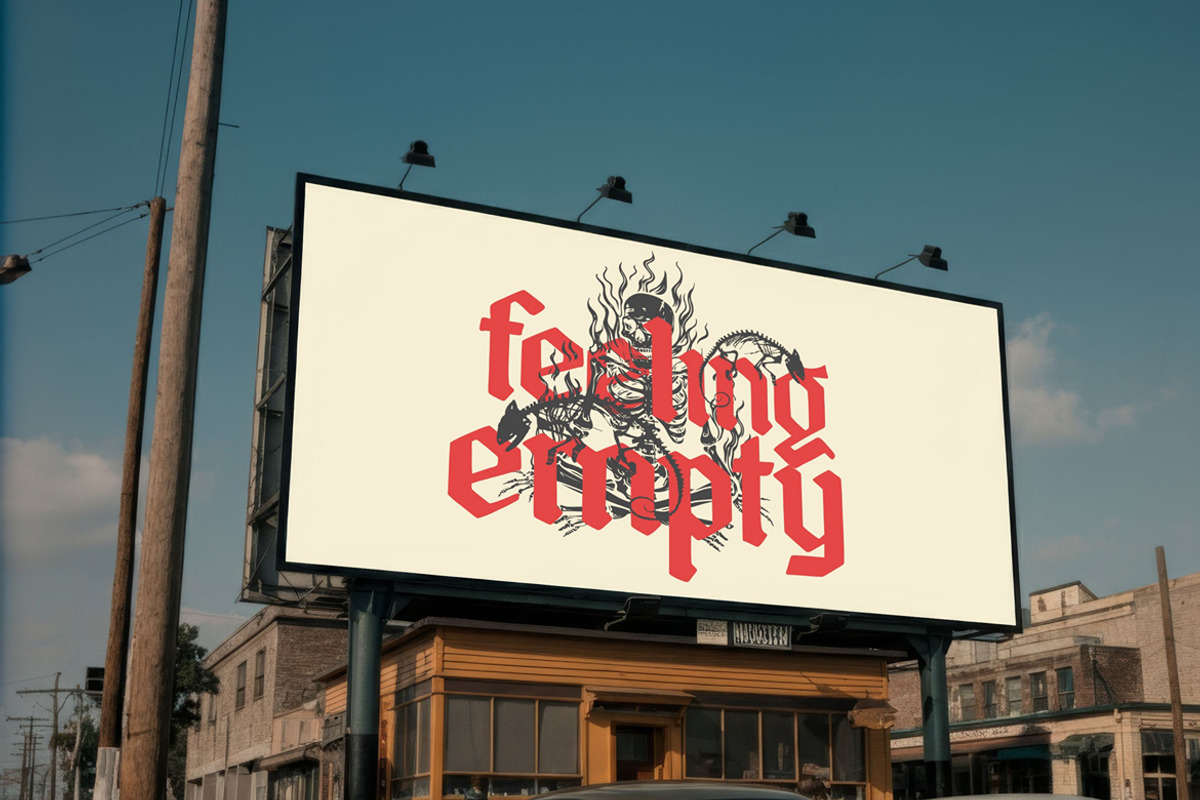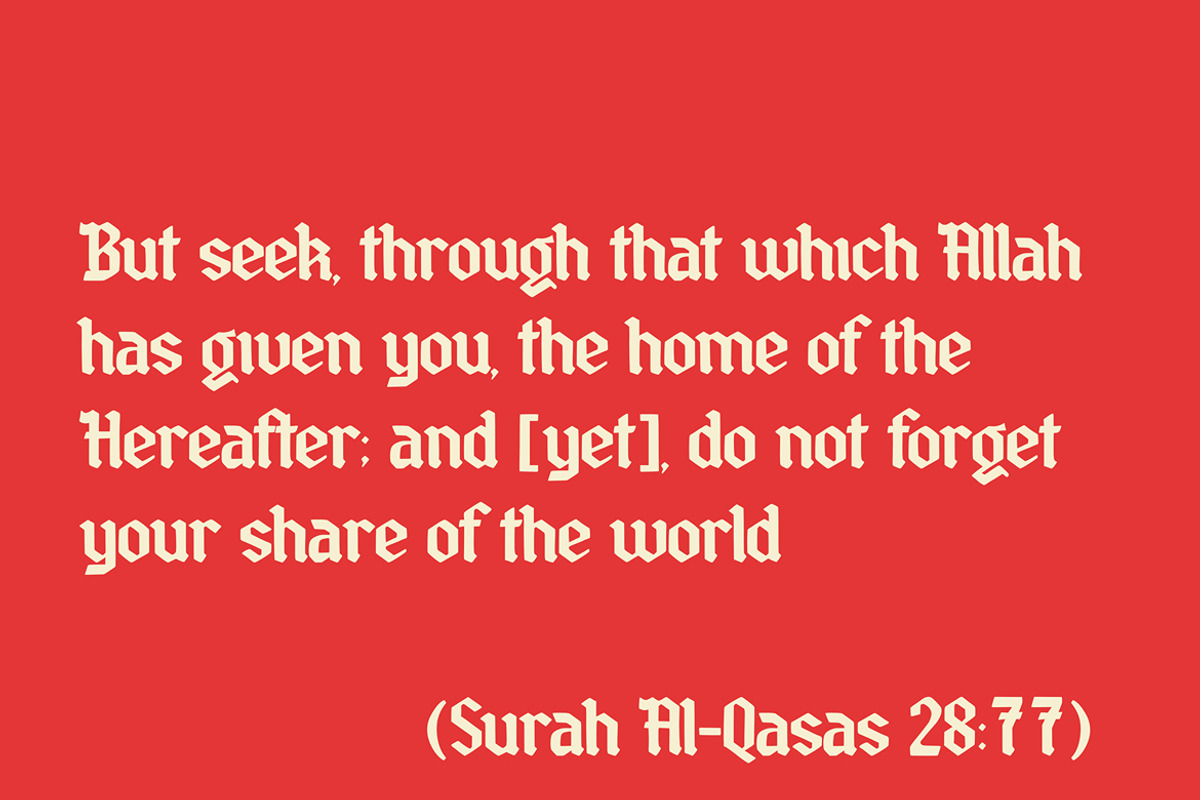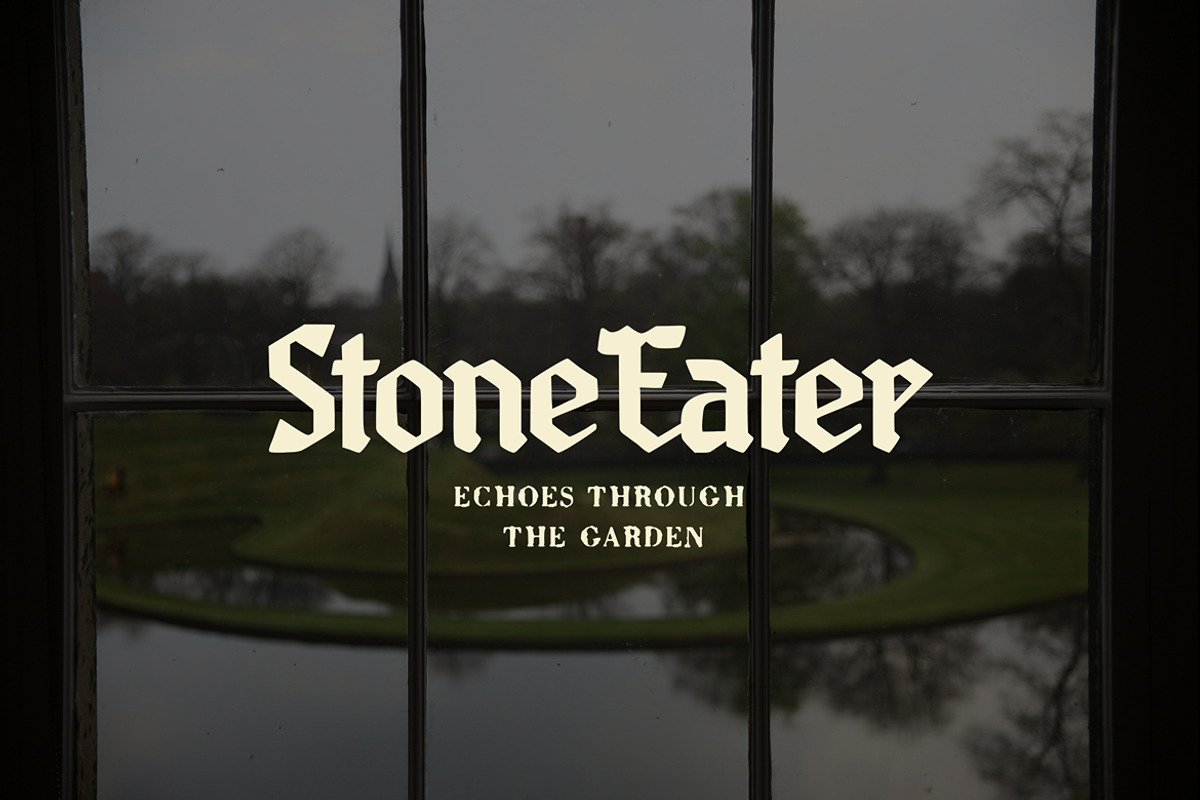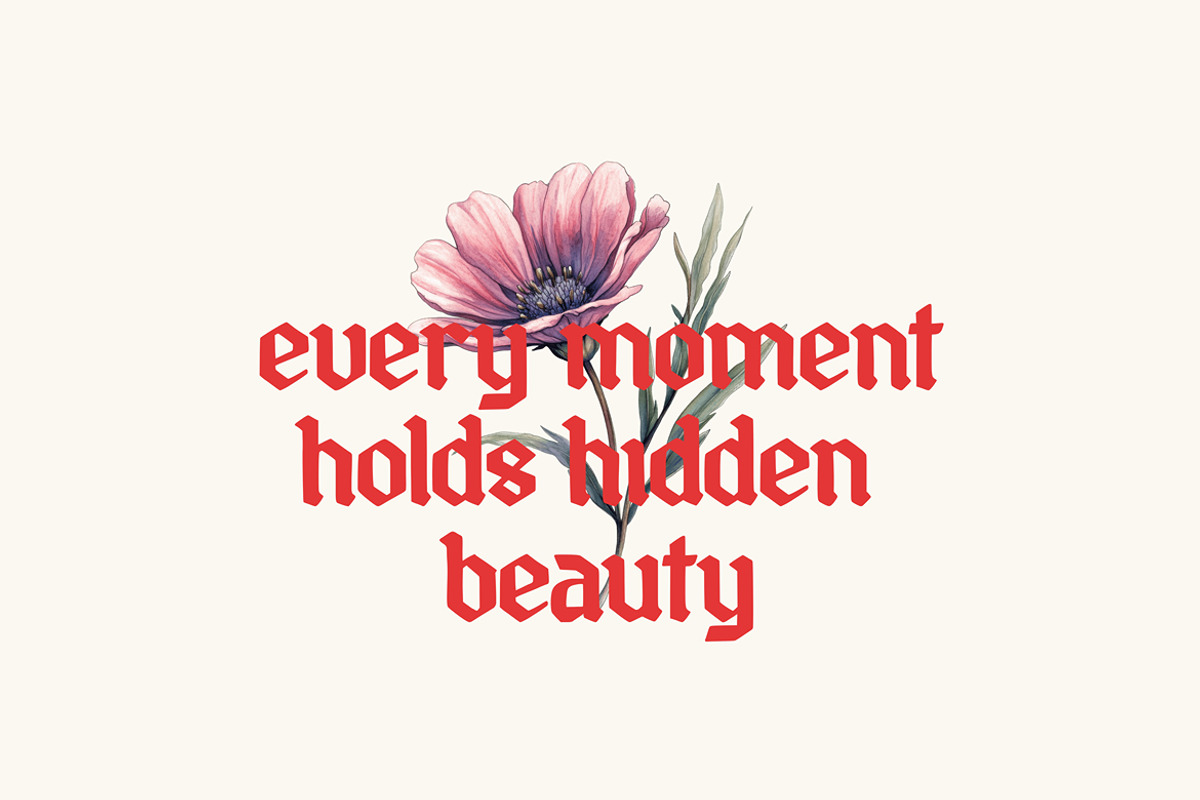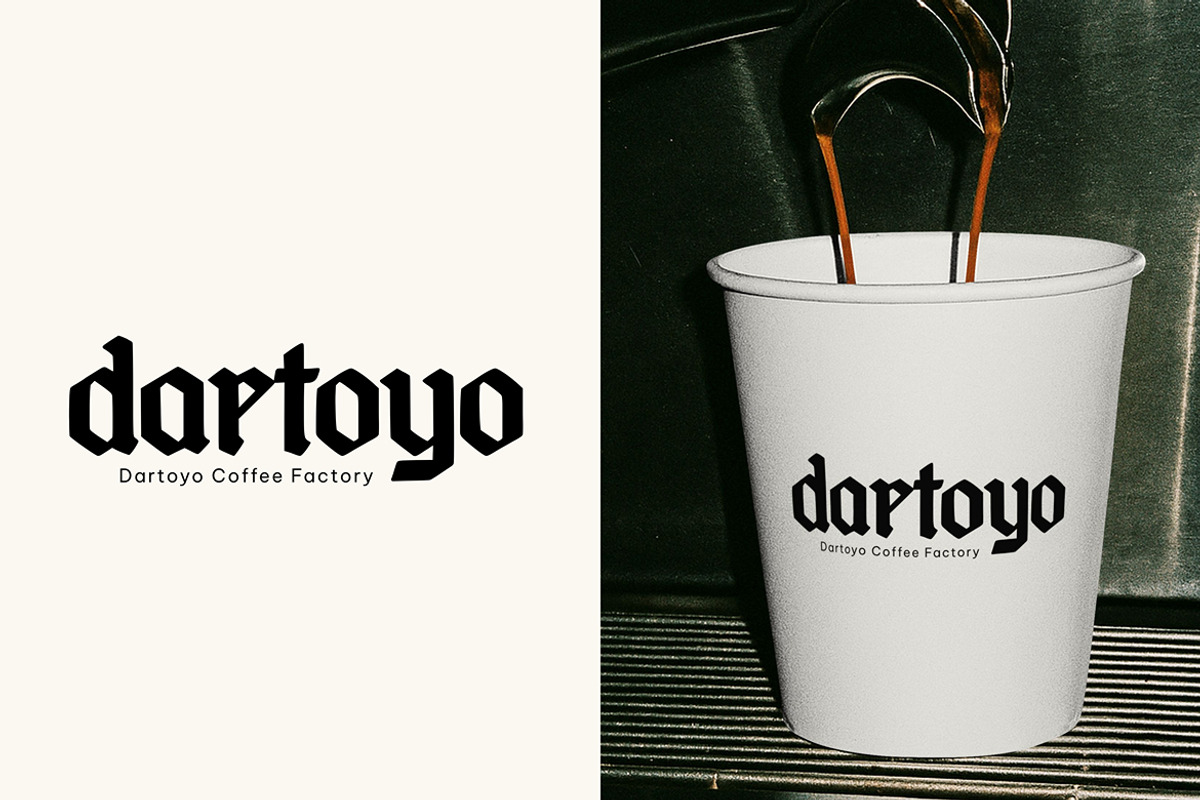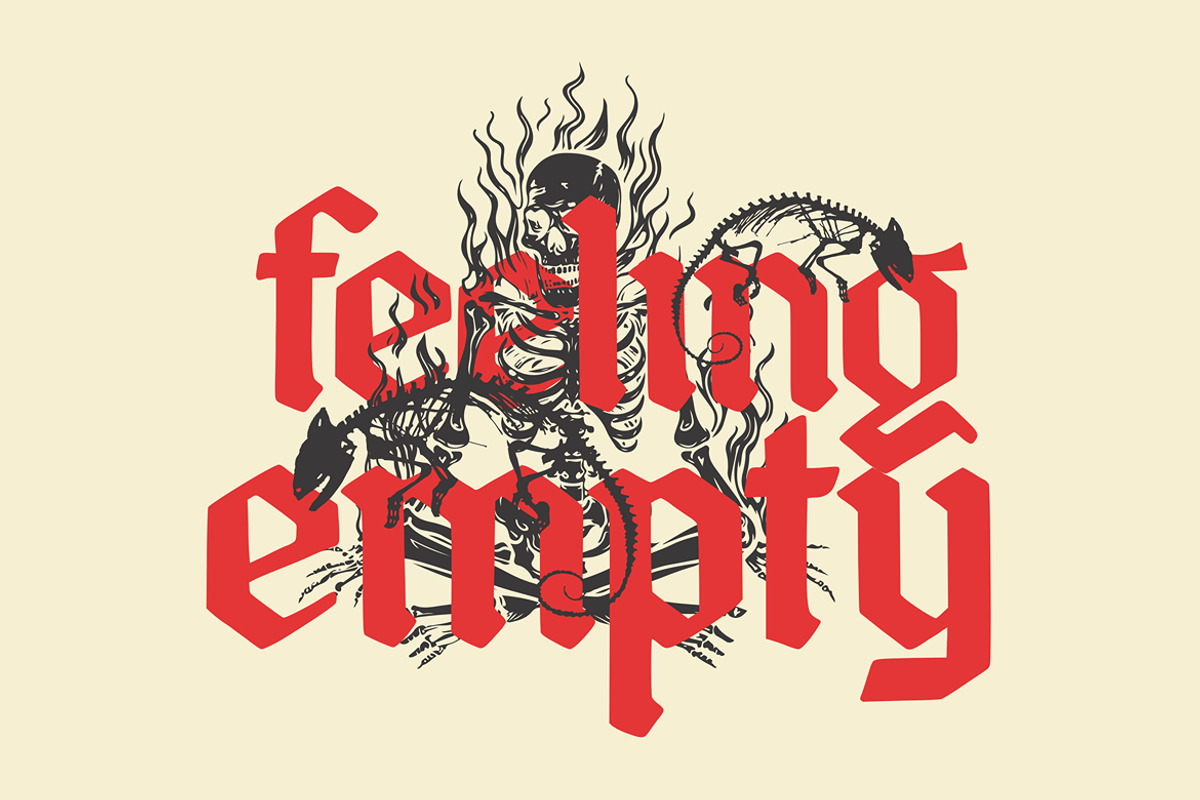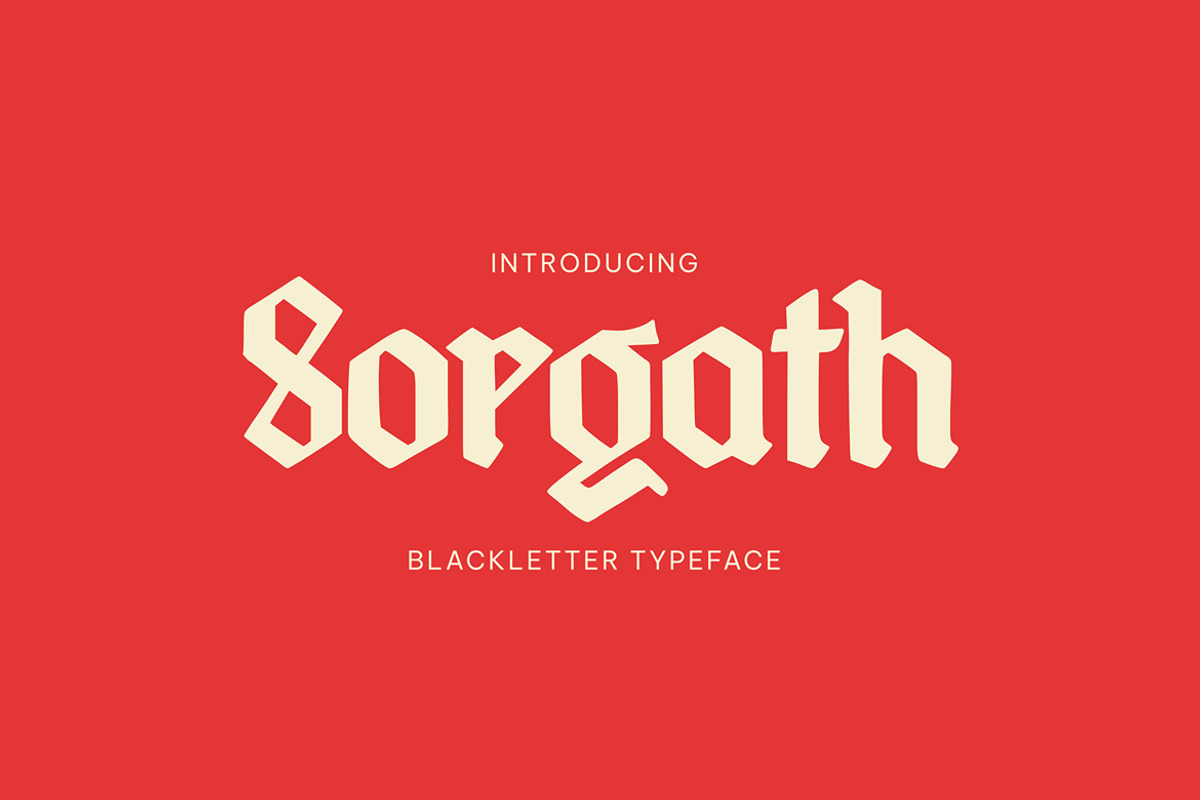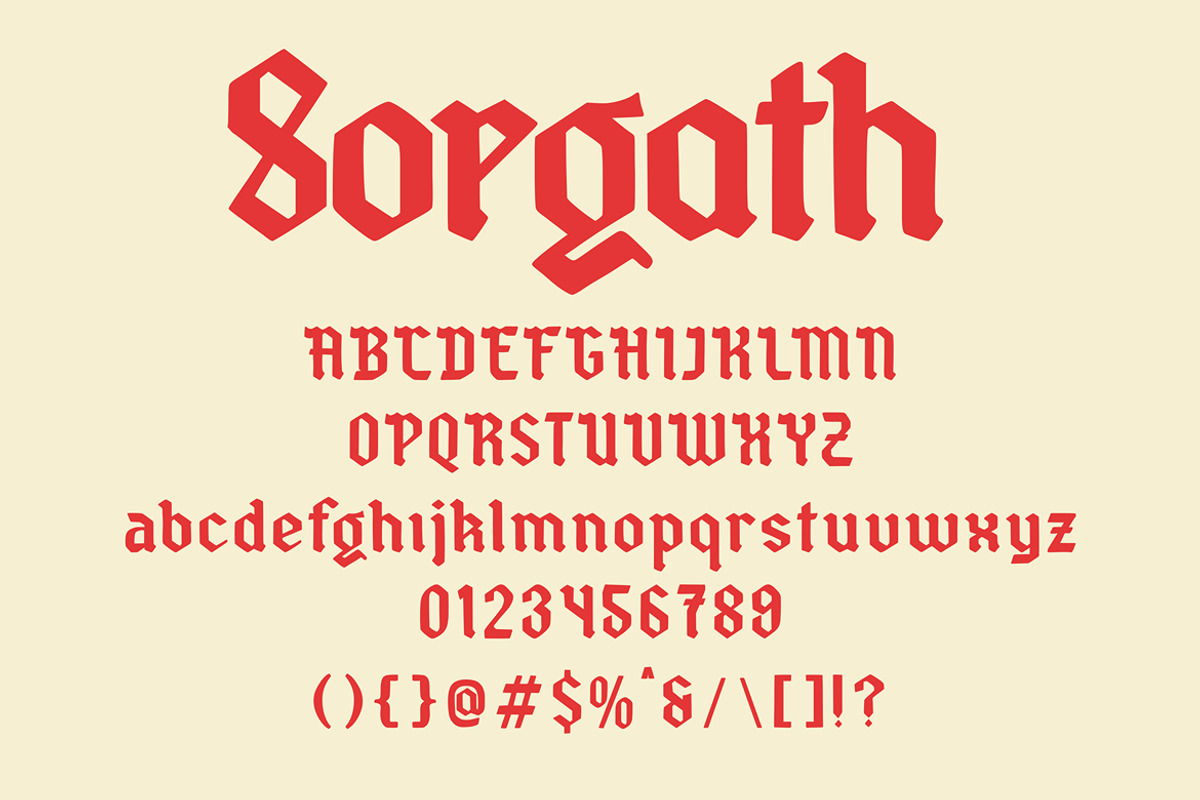
Sorgath – Blackletter Typeface
Sorgath is a bold blackletter typeface that embodies strength, tradition, and timeless character. With its commanding presence, this typeface is designed to bring a dramatic and authentic touch to any creative project. Perfect for headlines, branding, posters, book covers, and striking visual statements, Sorgath creates a sense of heritage while maintaining modern usability. Its strong personality makes it ideal for designs that need to stand out, convey authority, and leave a lasting impression. Whether used in digital or print, this typeface elevates your work with its unique gothic-inspired style.
- Uppercase Letters
- Ligature & Alternate Character
- Unique Hand-Drawn Style